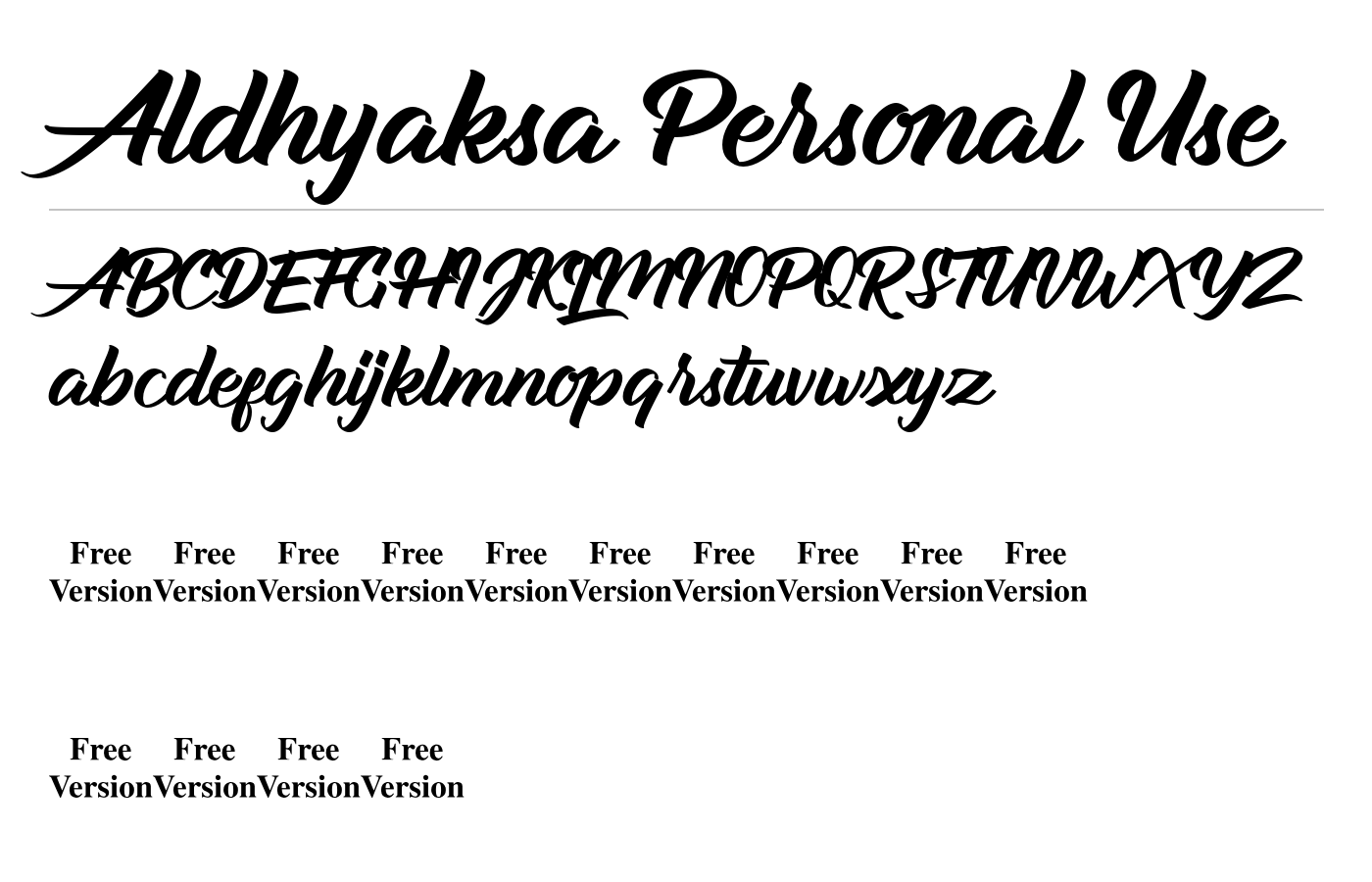
Aldhyaksa Personal Use is a stylish script font that features smooth, flowing strokes with moderate contrast, giving it an elegant and dynamic feel. Its connected letterforms and slightly slanted posture make it perfect for adding a personal, handwritten touch to branding, invitations, and decorative headlines. This font works well in creative projects where a modern, classy, and approachable look is desired.
Aldhyaksa Personal Use Font
About Aldhyaksa Personal Use Font
| Font family | Aldhyaksa Personal Use Font |
| Designer | Fuad Hasan |